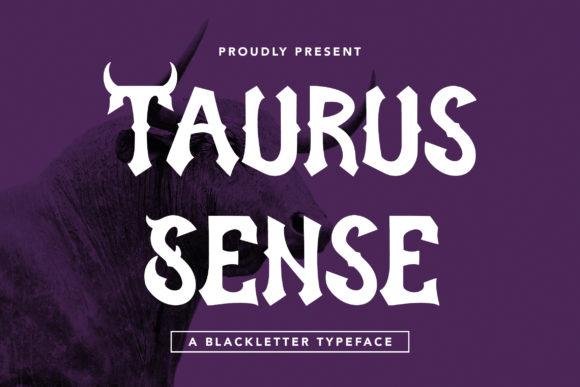
Unleash the Dark Beauty of Taurus Sense: A Blackletter Font Steeped in Gothic Allure
Embark on a typographic journey into the realm of darkness and intrigue with Taurus Sense, a captivating blackletter font that exudes an aura of mystery and power. Inspired by the captivating aesthetics of gothic and horror genres, Taurus Sense stands as a testament to the alluring charm of the macabre.
Indulge your creative instincts and let Taurus Sense cast its spell on your designs. From haunting posters and eye-catching logos to spellbinding book covers and captivating social media graphics, Taurus Sense possesses the versatility to transform your projects into mesmerizing works of art. Its bold and commanding presence demands attention, while its intricate details add a touch of sophistication and elegance.
Step into the shadows and let Taurus Sense guide you through a world of dark beauty and imagination. Its sharp edges and dramatic curves evoke a sense of urgency and intrigue, while its flowing lines create a rhythm that draws the eye and captivates the senses. Whether you're a seasoned designer or just starting your creative exploration, Taurus Sense is your key to unlocking a realm of boundless possibilities.
With Taurus Sense at your disposal, you hold the power to craft designs that resonate with your audience on a profound level. Its ability to evoke emotions and create a lasting impression makes it the perfect choice for projects that demand attention and leave an indelible mark. As you weave your creative magic with Taurus Sense, you'll discover a font that pushes boundaries and challenges the ordinary.